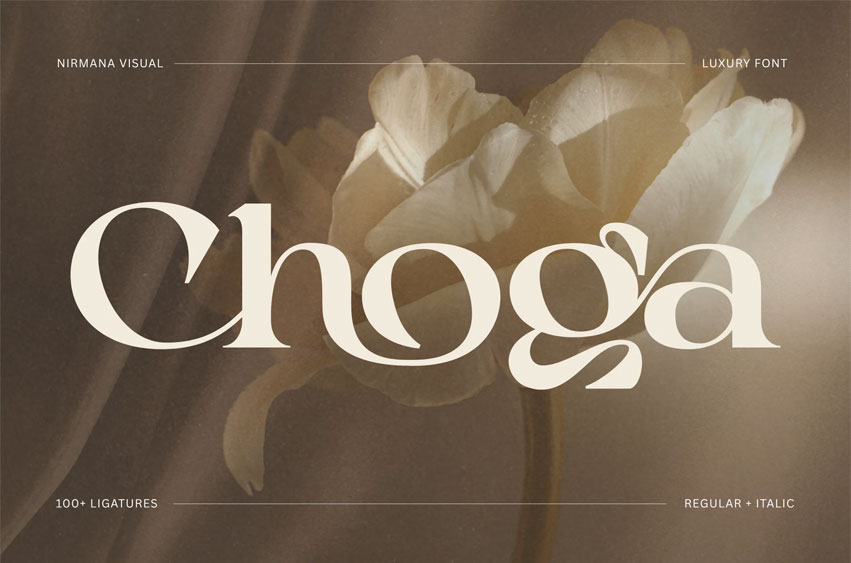
Choga Font
Choga Font offers beautiful typographic harmony for a diversity of design projects, including logos & branding, social media posts, advertisements & product designs.